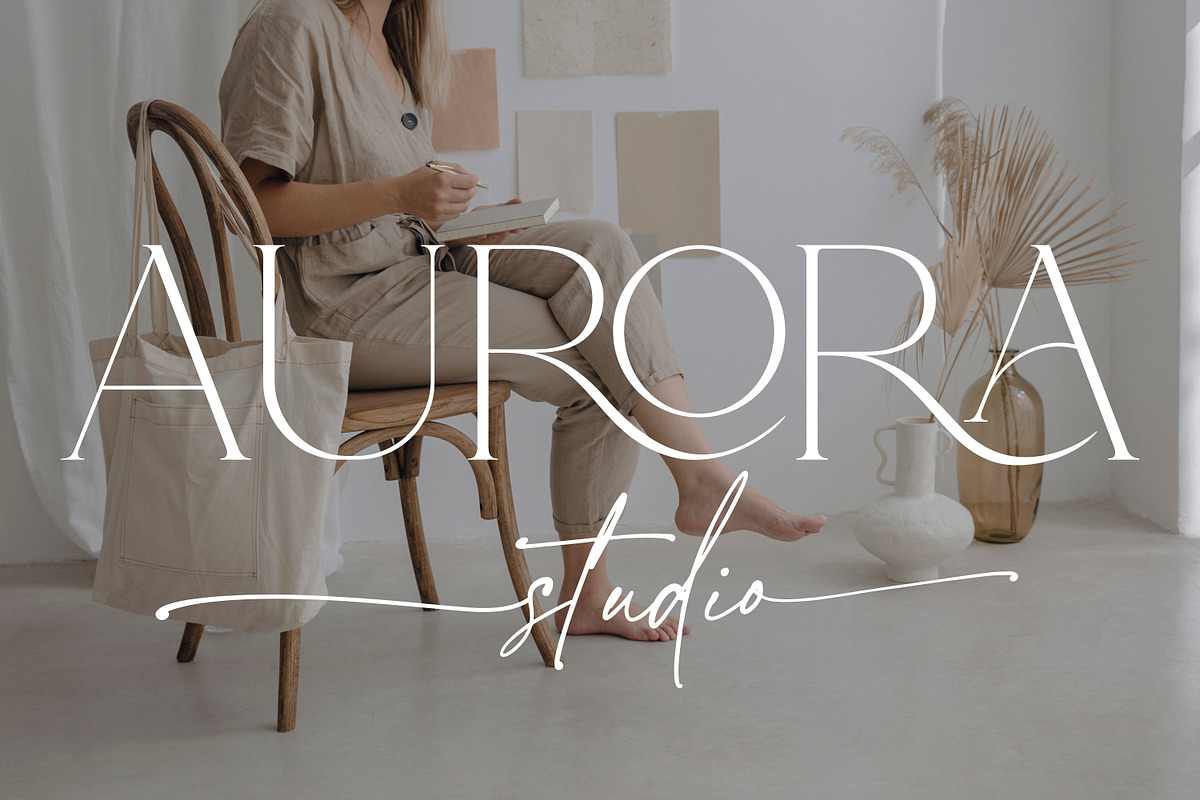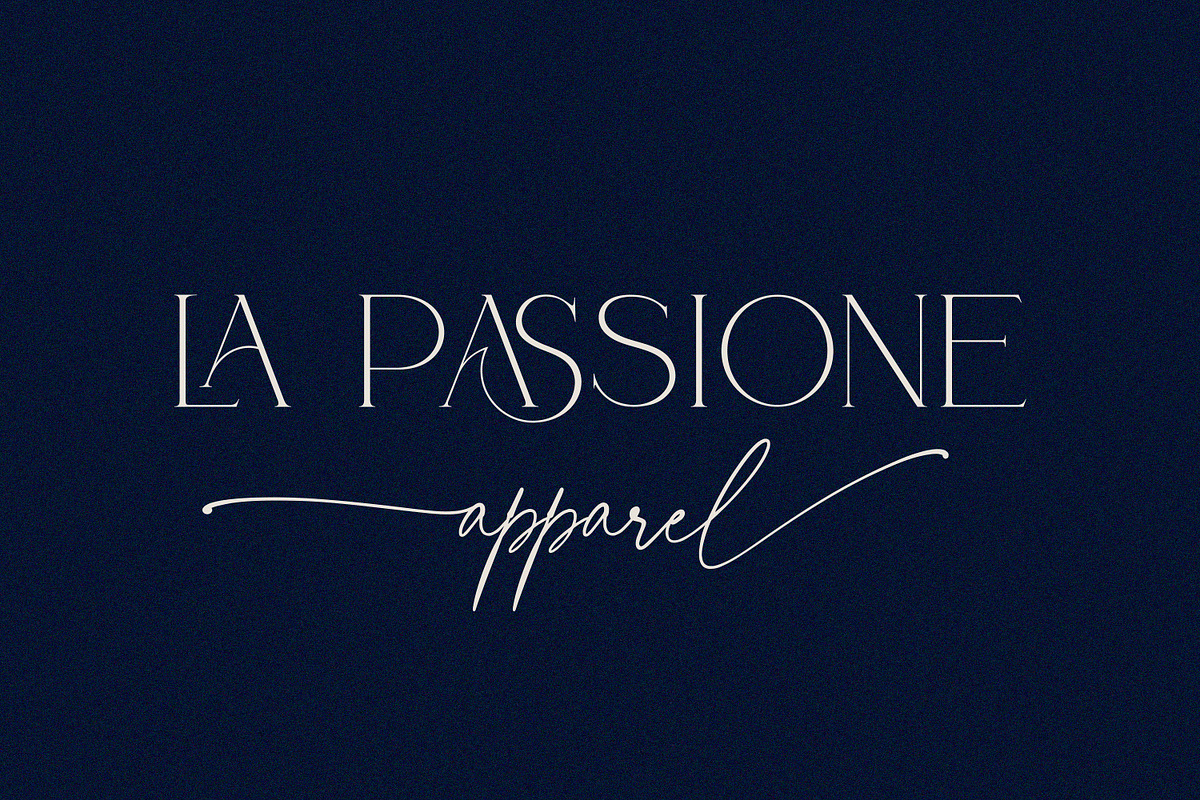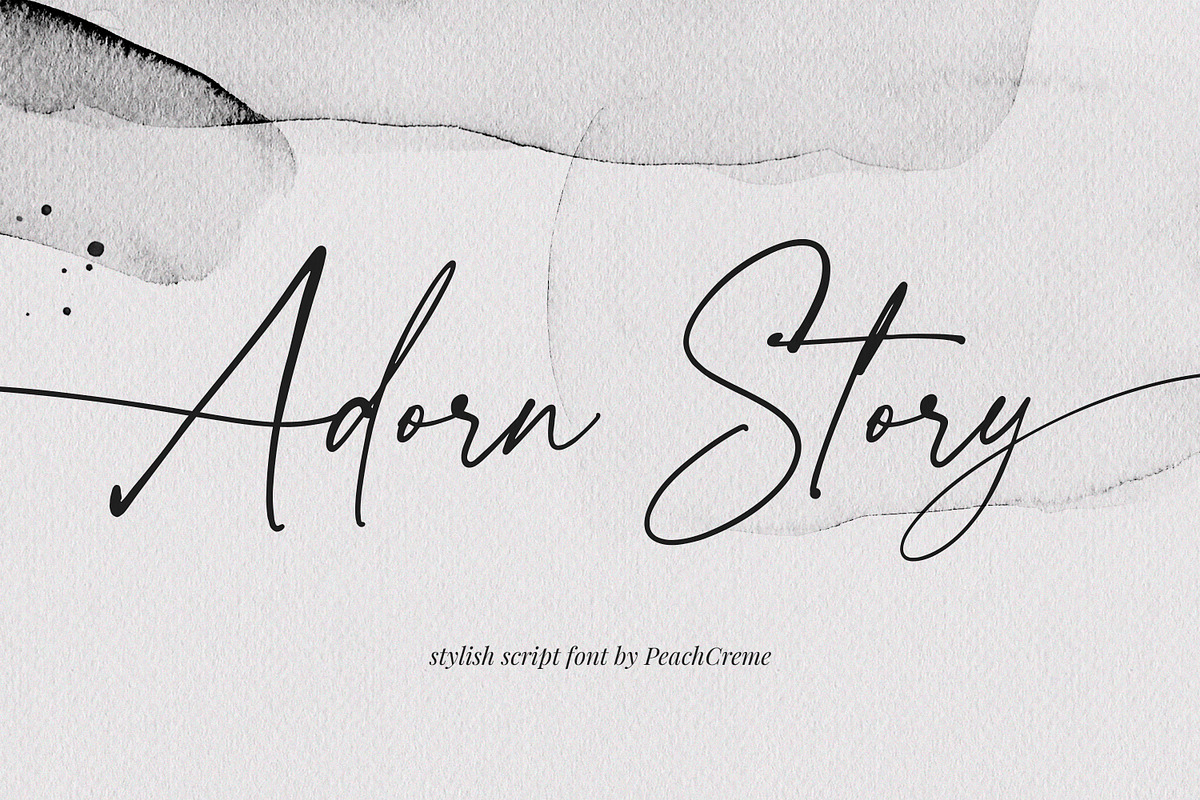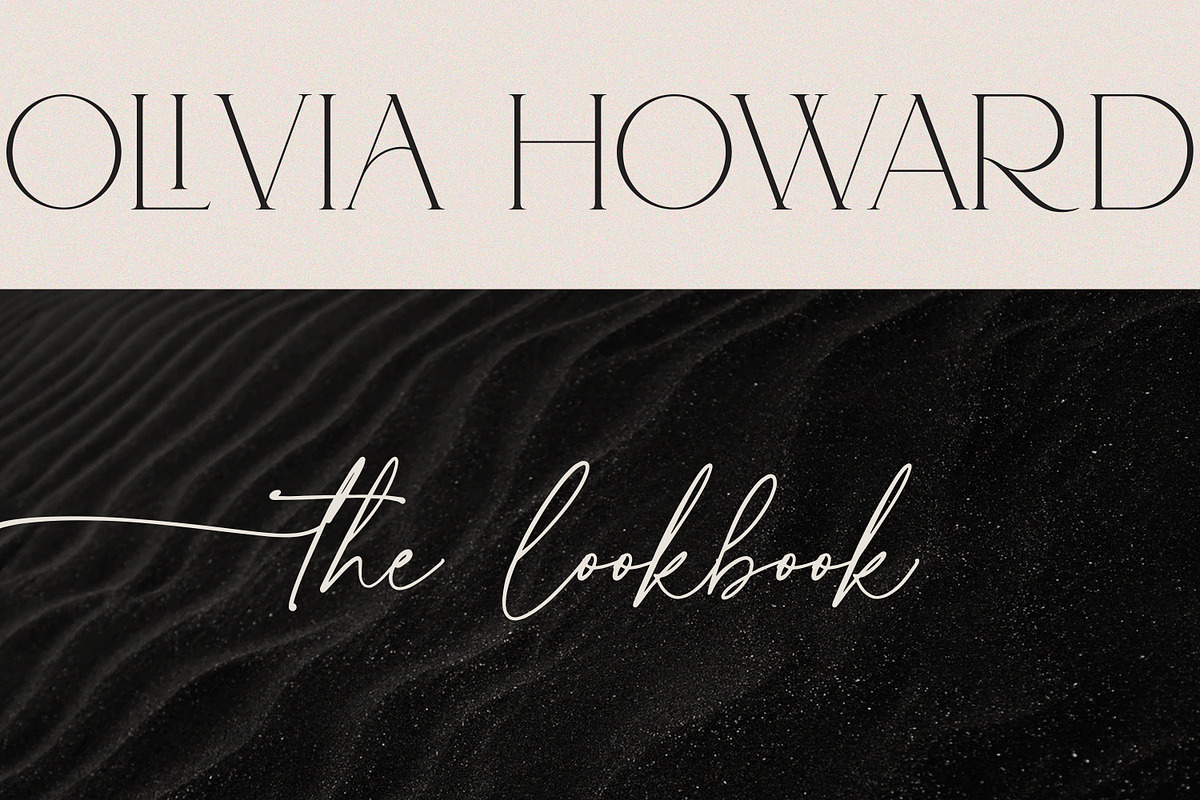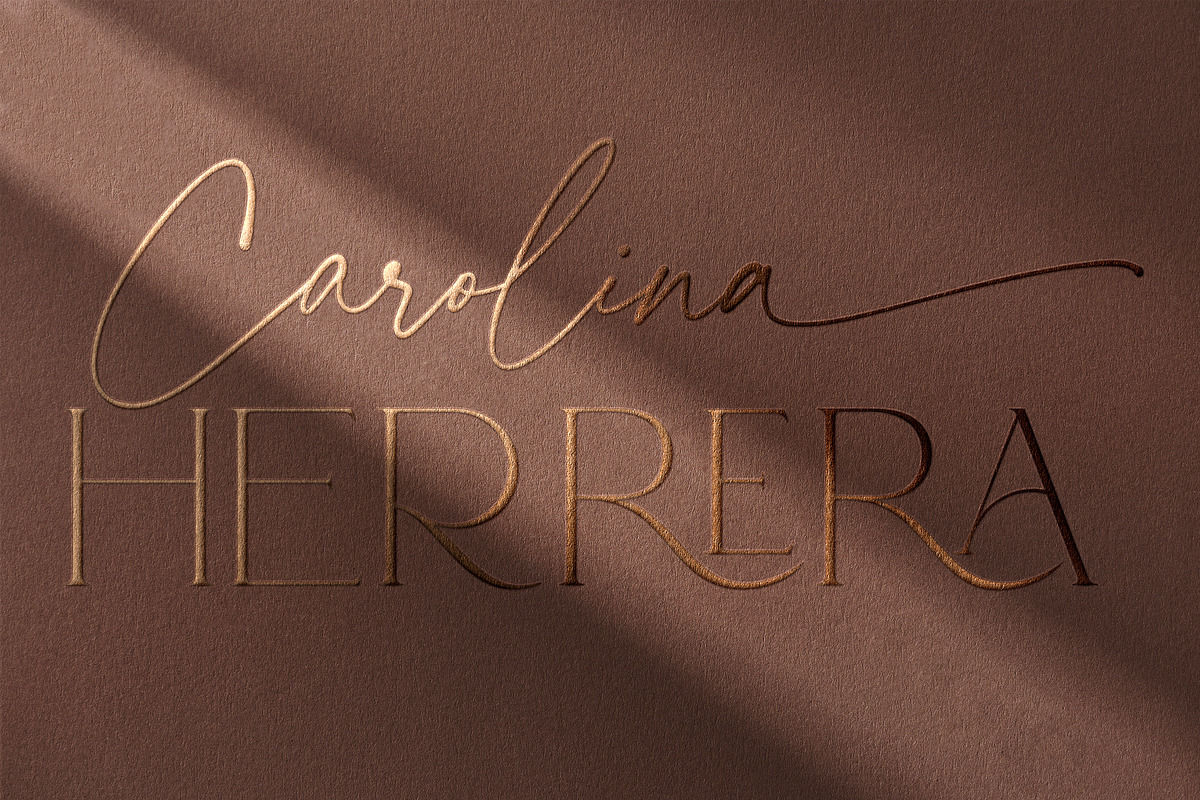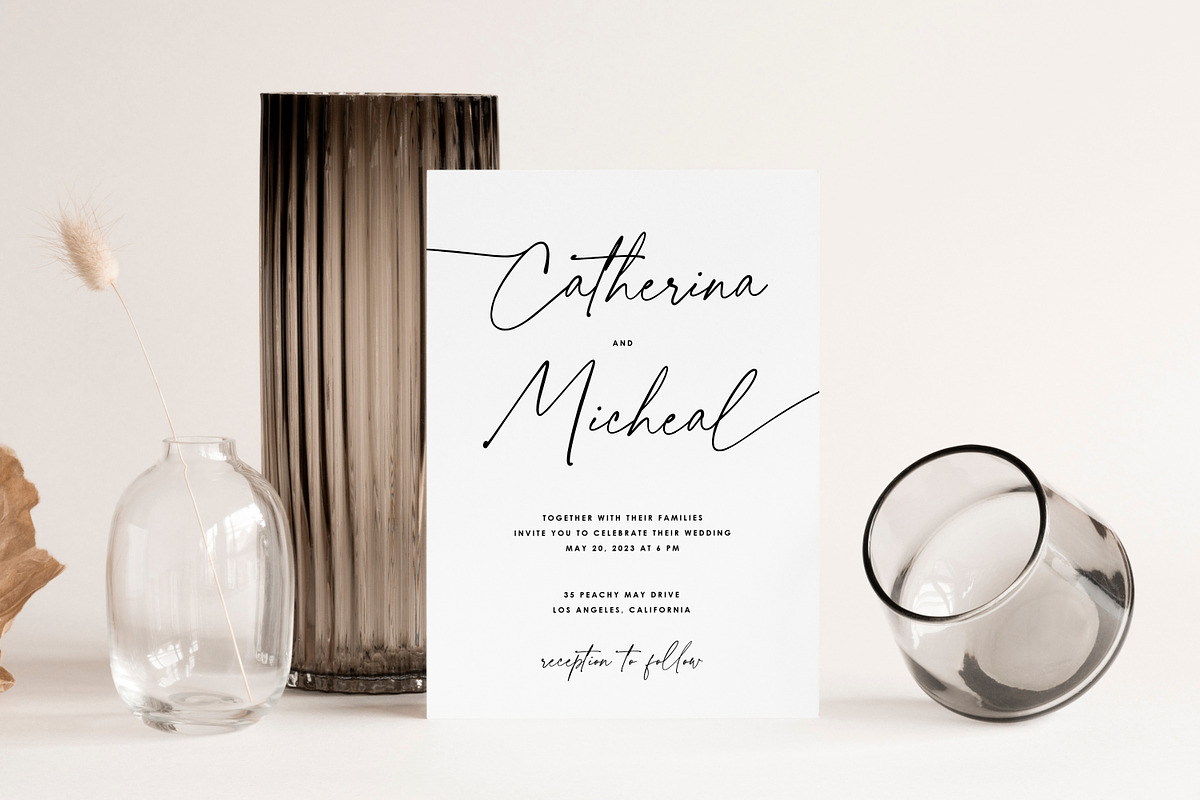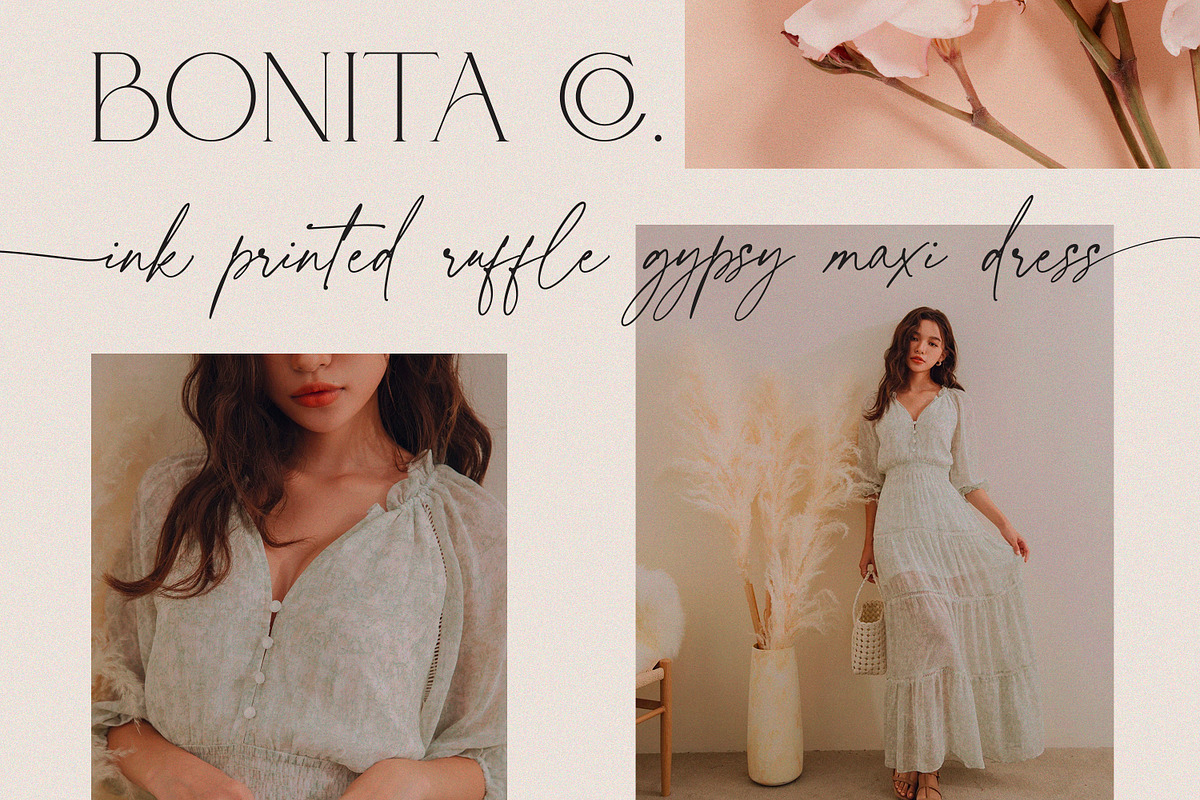
Adorn Story Script Font
If you have fallen in love with Script font from Adorn Story, this is a deal! Now you can purchase the script on its own, without paying additional for serif font. The script font has beginning uppercase, beginning and ending lowercase swashes. What you get: